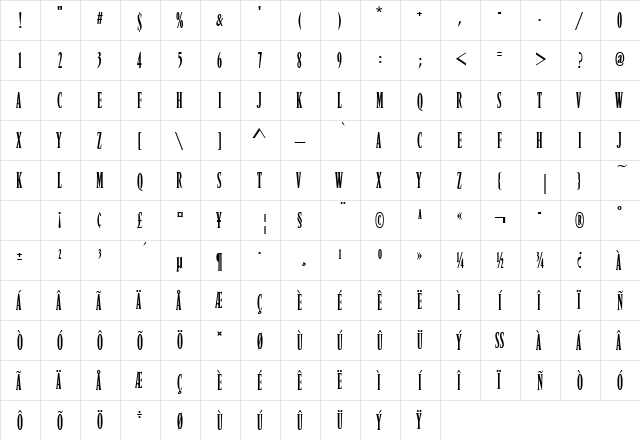
VendomeComDReg Regular Font Preview
VendomeComDReg Regular
Design Context for VendomeComDReg Typeface
VendomeComDReg is a composed and adaptable typeface that performs quietly and consistently across a wide range of design contexts.